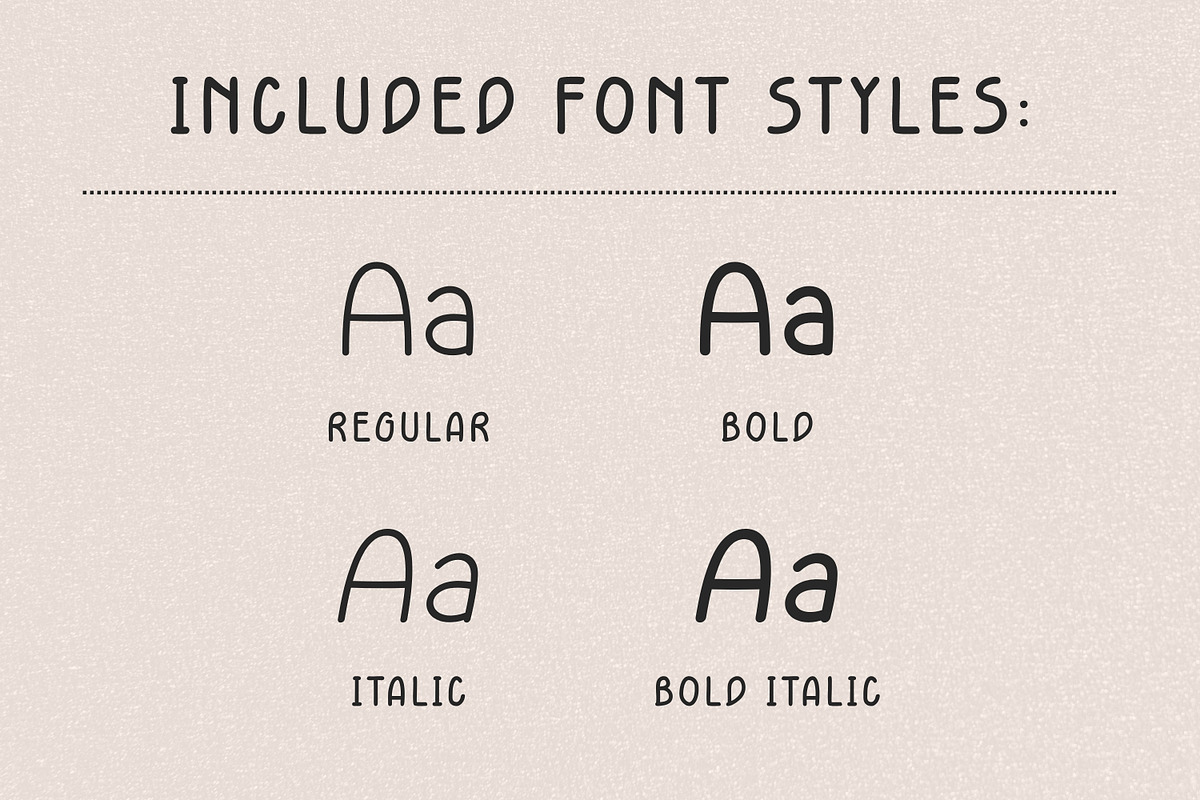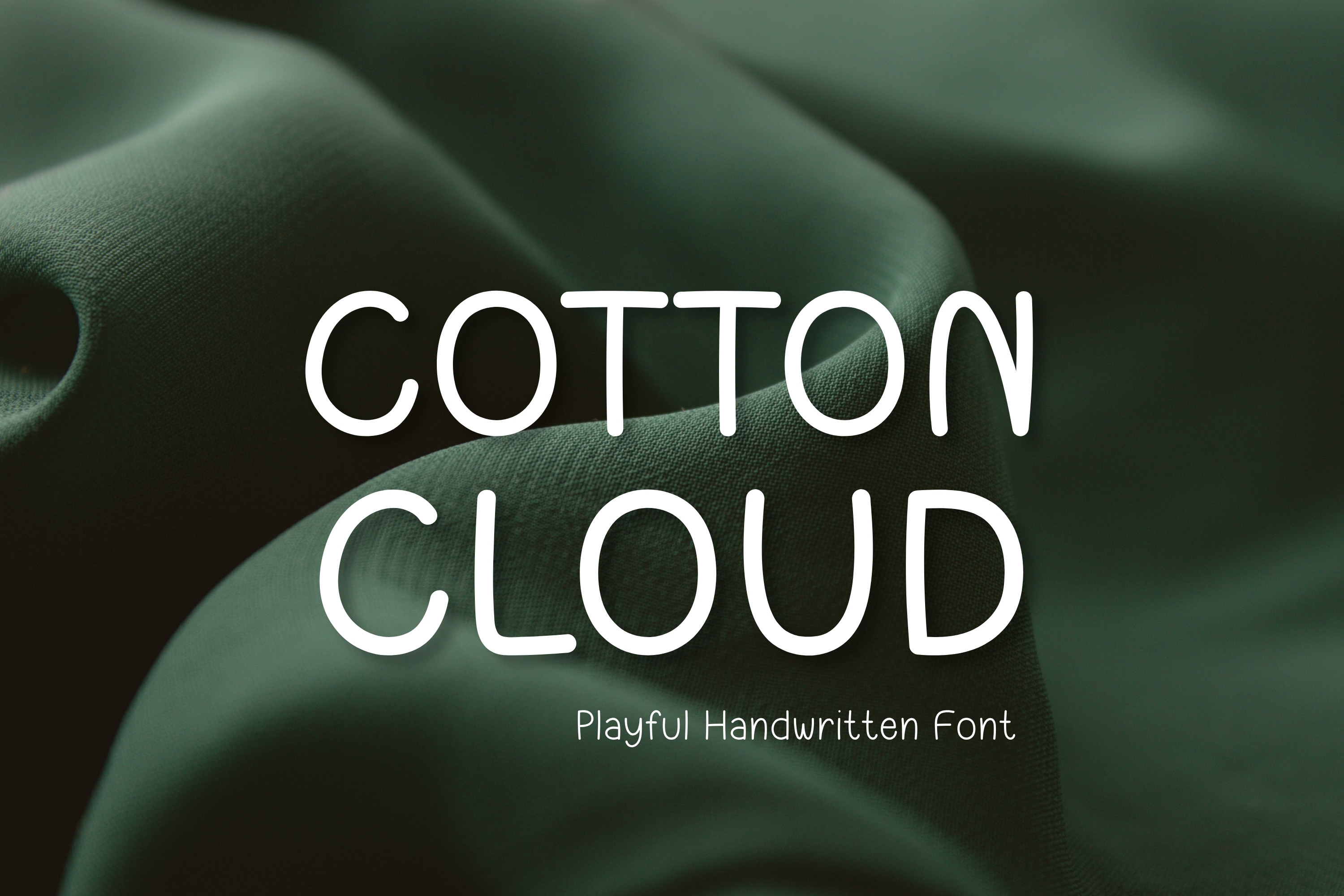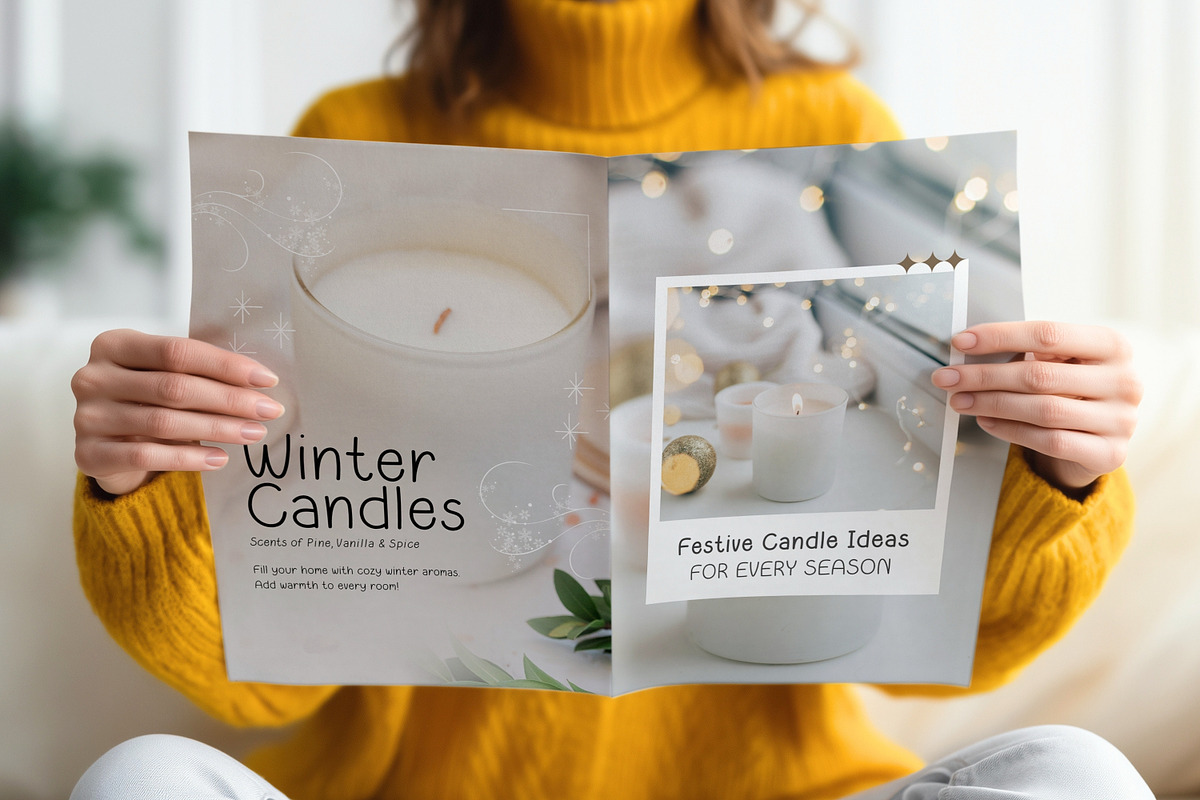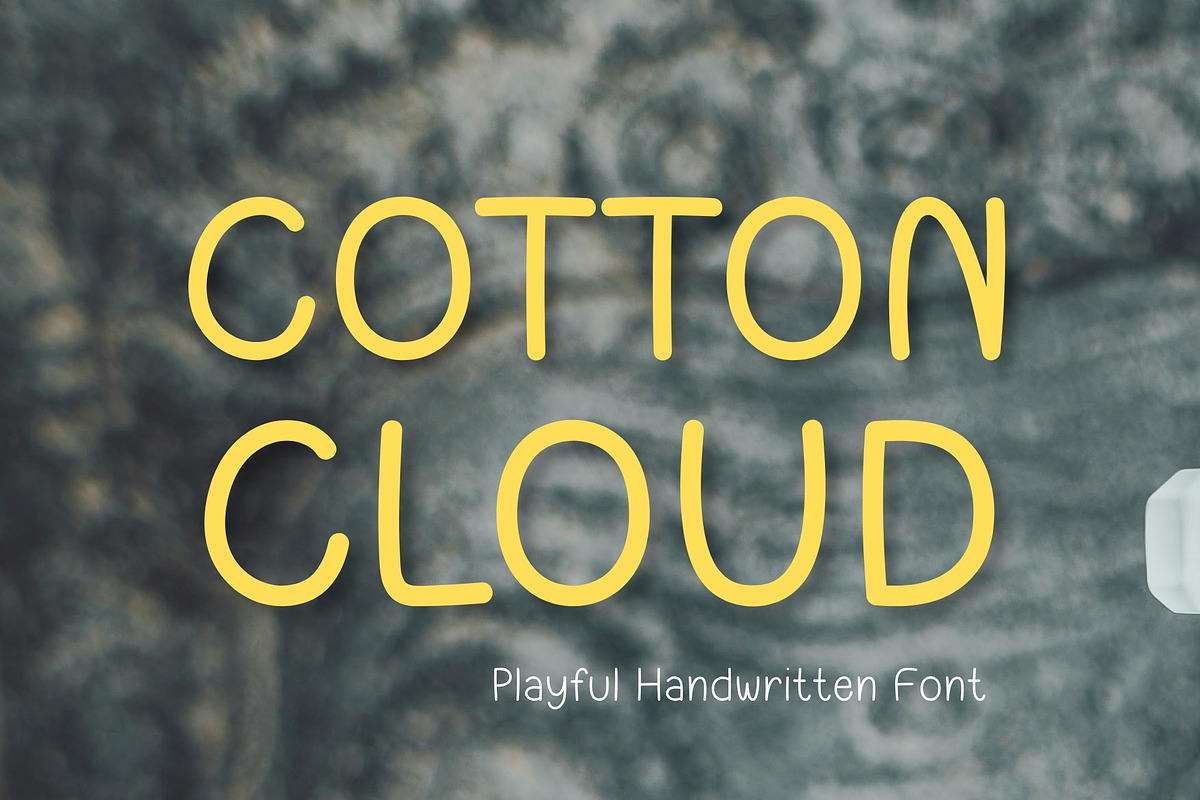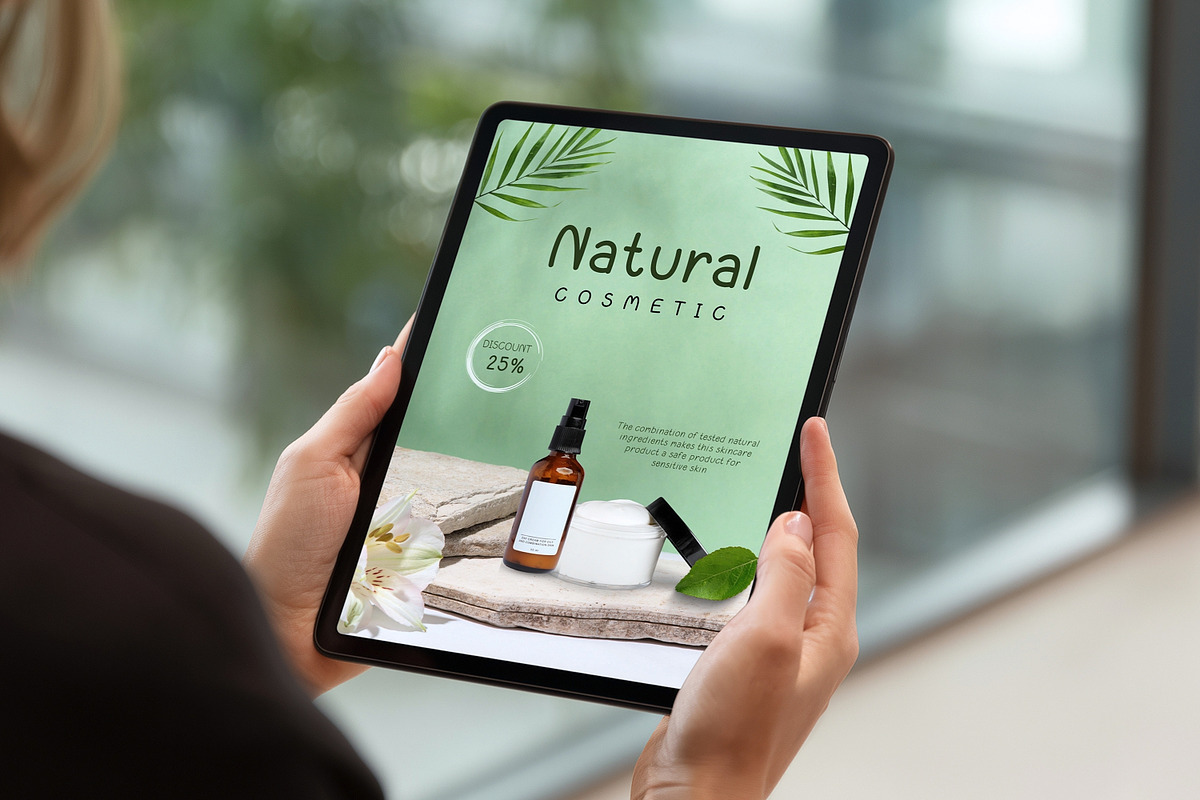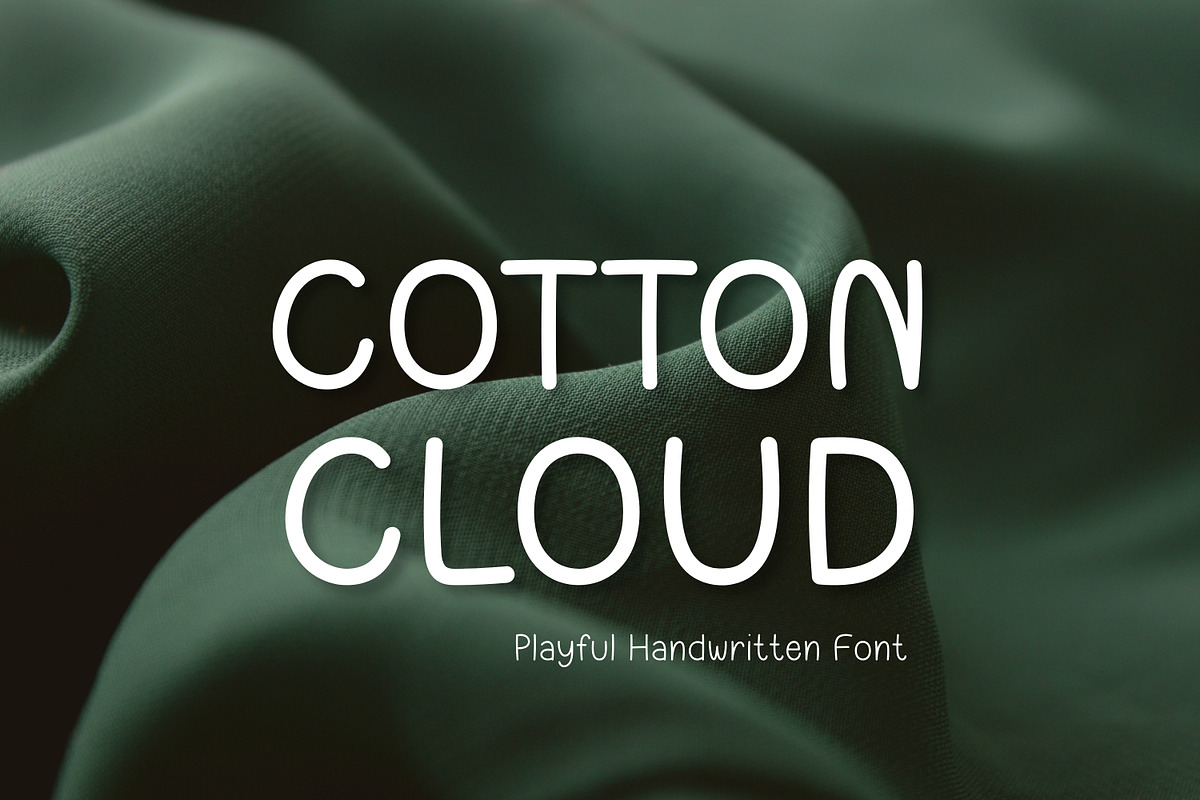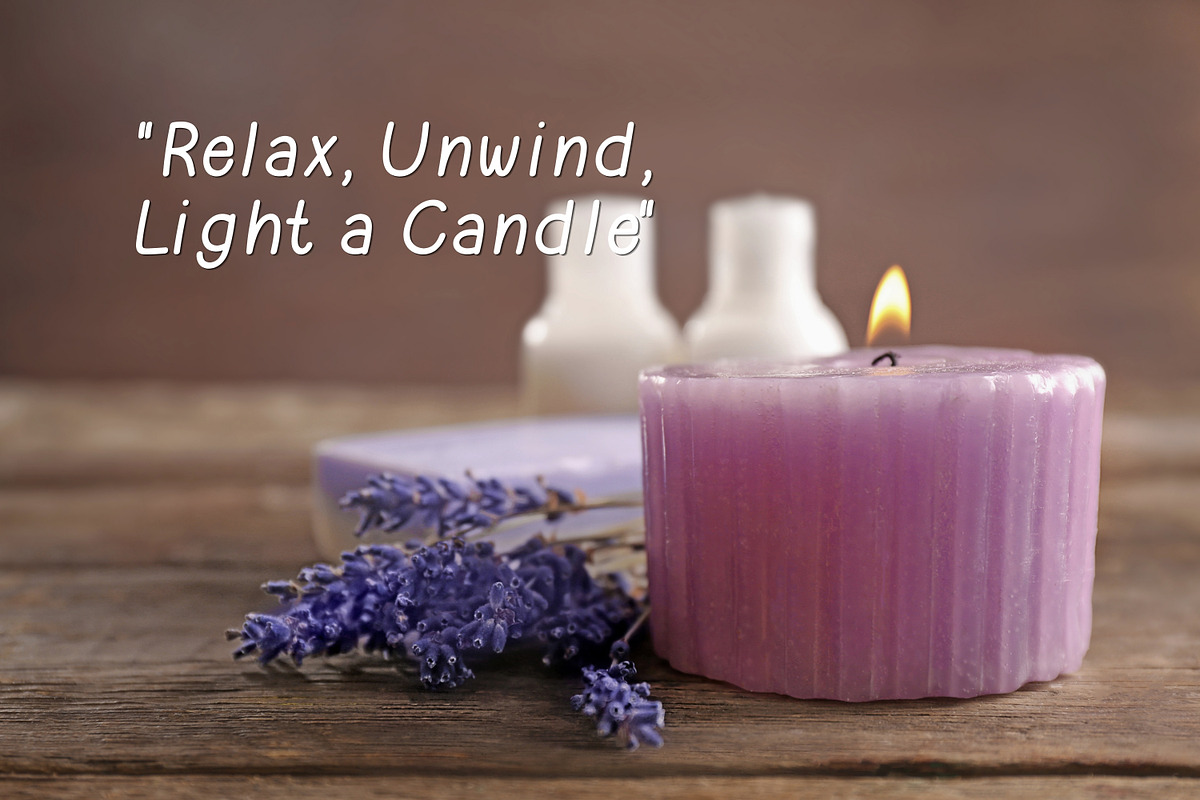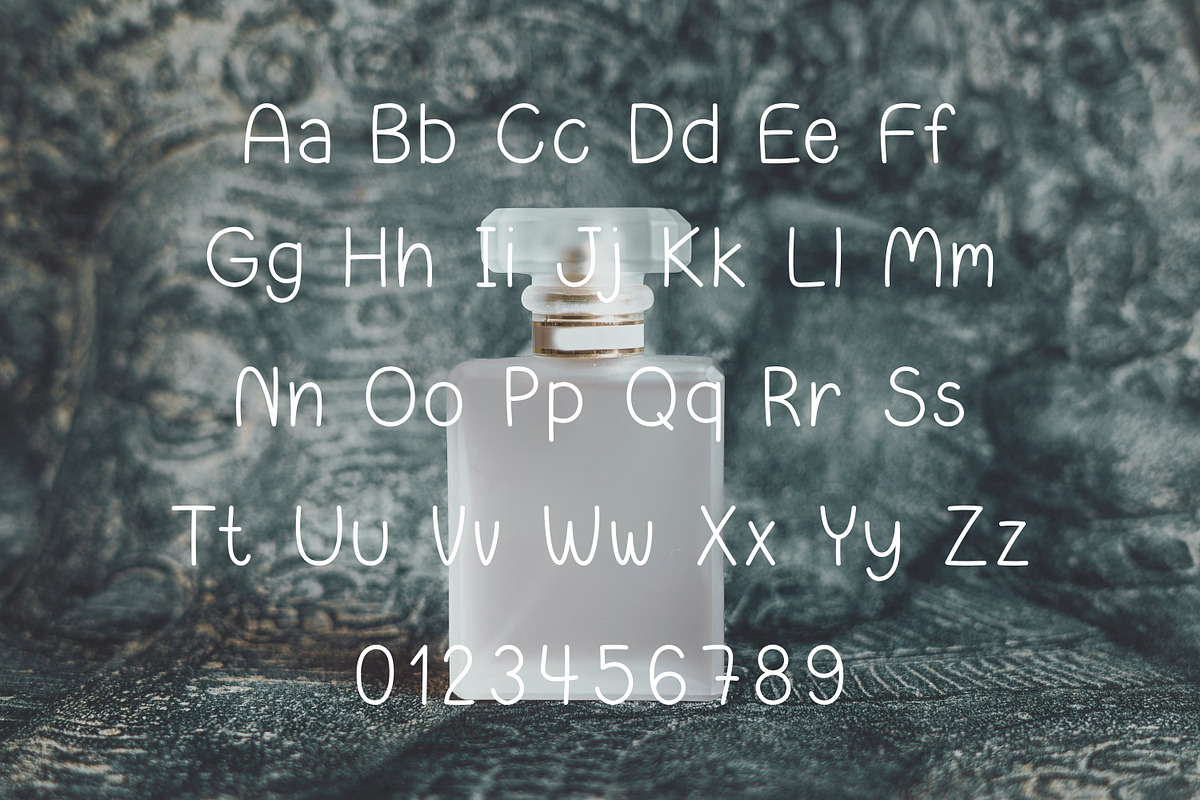
Handwritten Font – Cotton Cloud
Cotton Cloud - Airy & Modern Display Font Elevate your designs with Cotton Cloud, a minimalist display font that embodies simplicity and modern elegance. Designed with clean lines and soft curves, this font captures a sense of calm and clarity, making your text feel as light and effortless as a summer cloud.
Its balanced proportions and contemporary aesthetic make Cotton Cloud the perfect choice for high-end branding, editorial layouts, and digital content that requires a fresh, sophisticated touch.